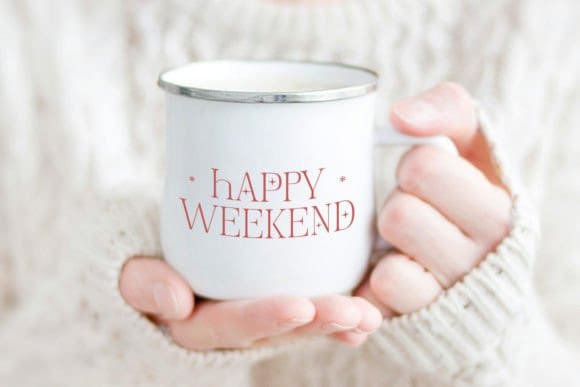
Youth Leader Font
Youth Leader Font is a bold and commanding serif display font that exudes confidence with its all caps design and sharp corners. Crafted with meticulous attention to detail, this font captures the essence of leadership and strength. Each letter in Youth Leader is meticulously designed with sharp corners, giving it a bold appearance. The all caps design adds to the font’s commanding presence. What sets YouthLeader apart is its versatility and versatility.